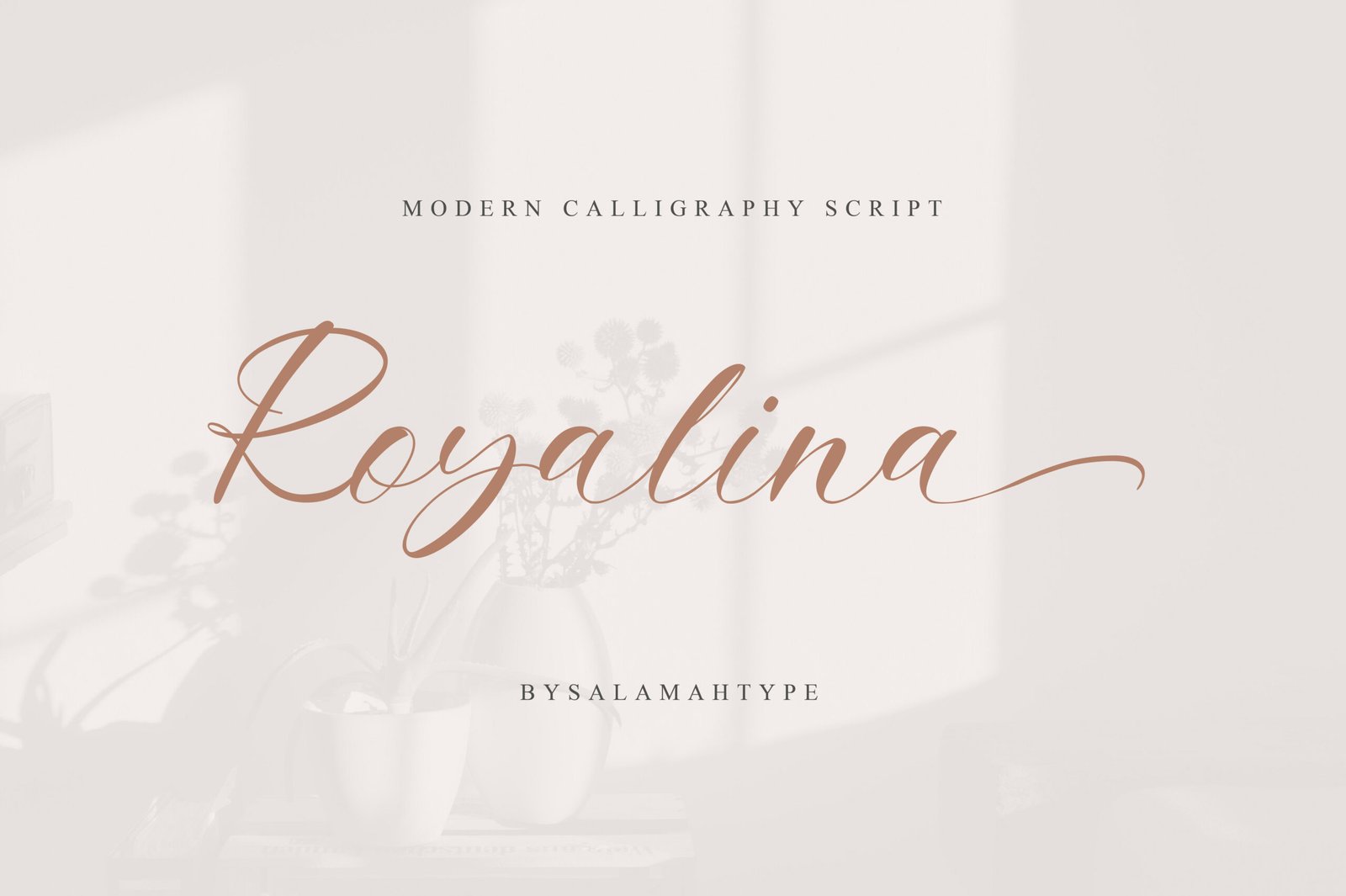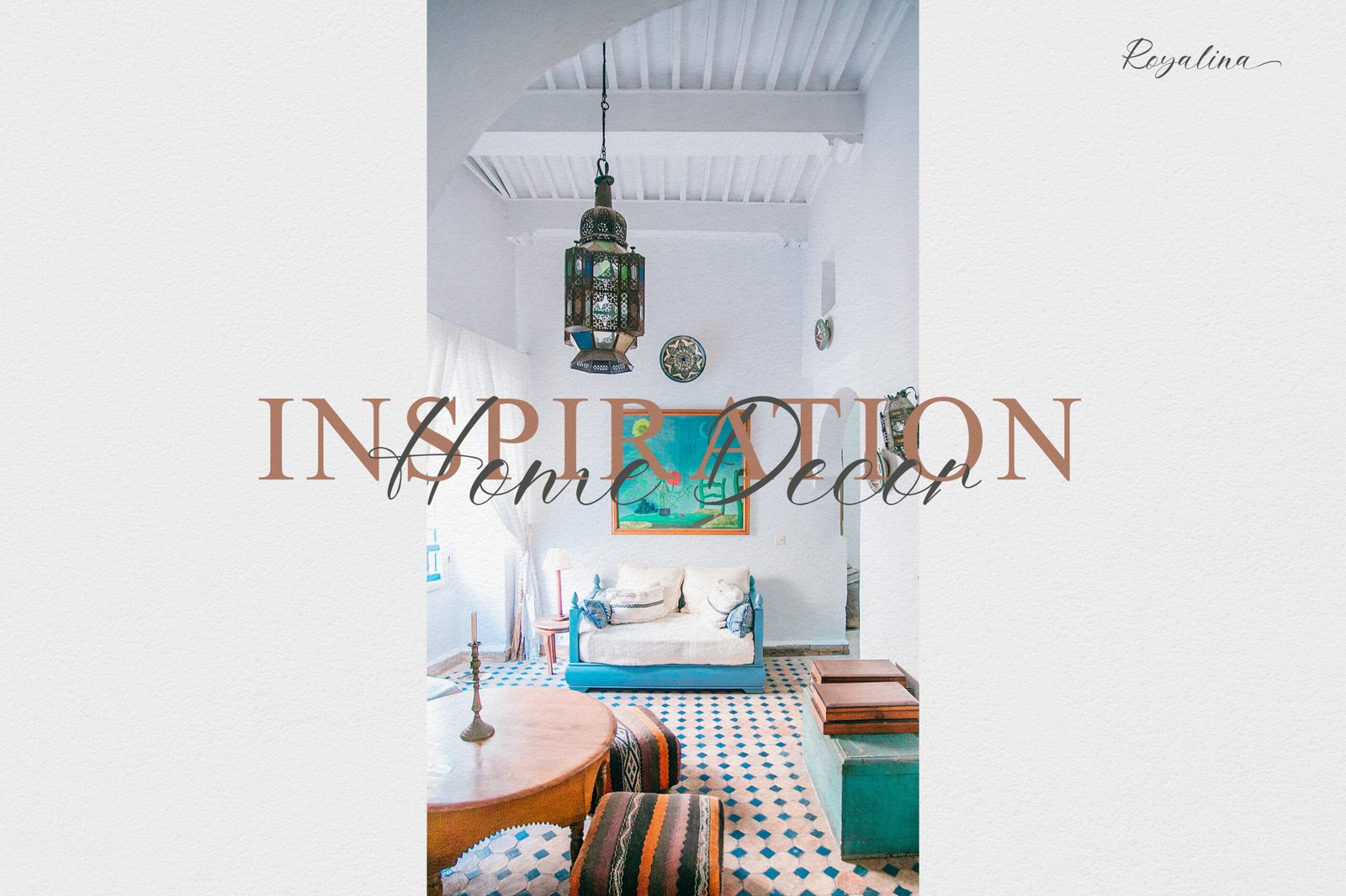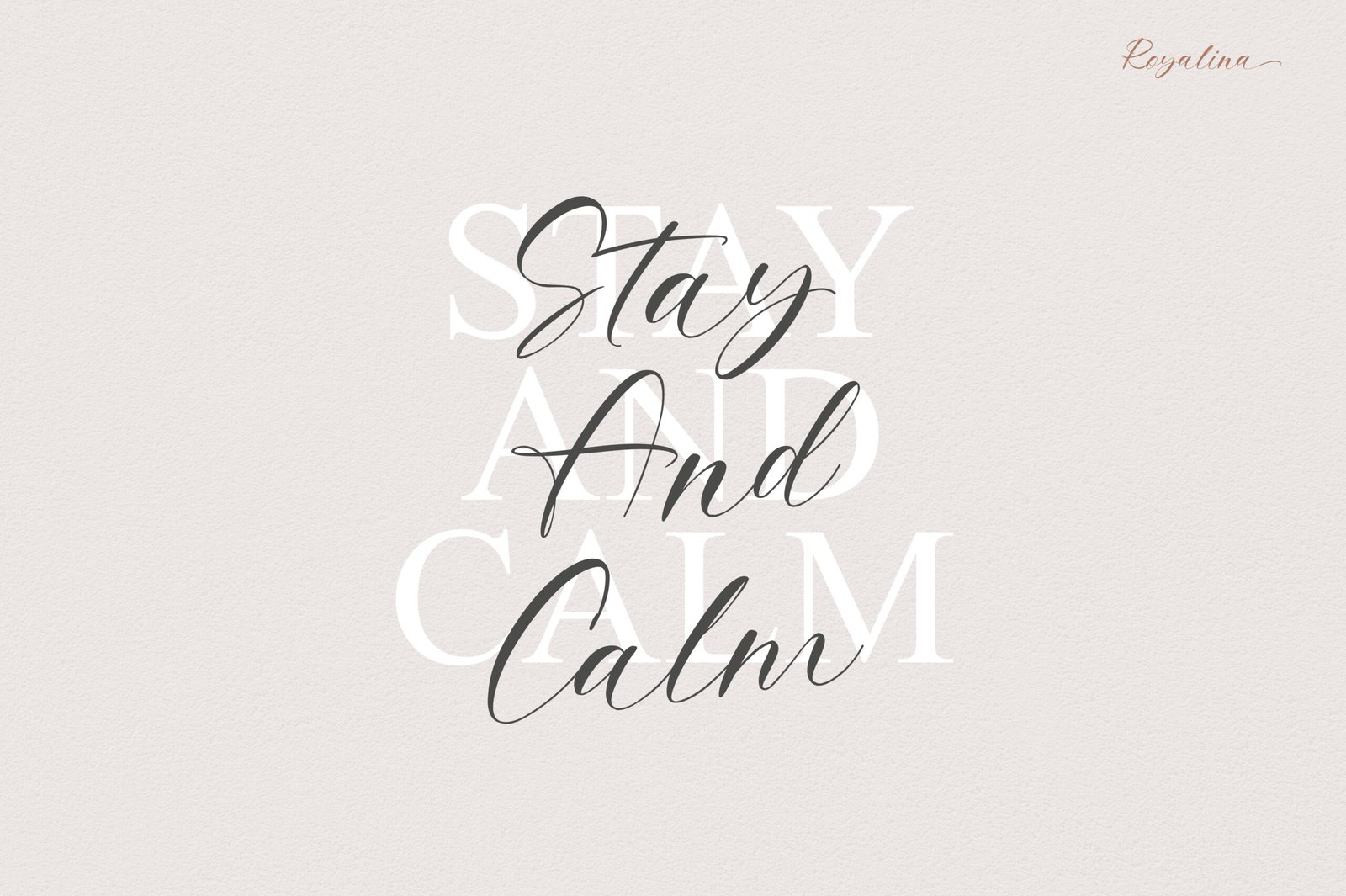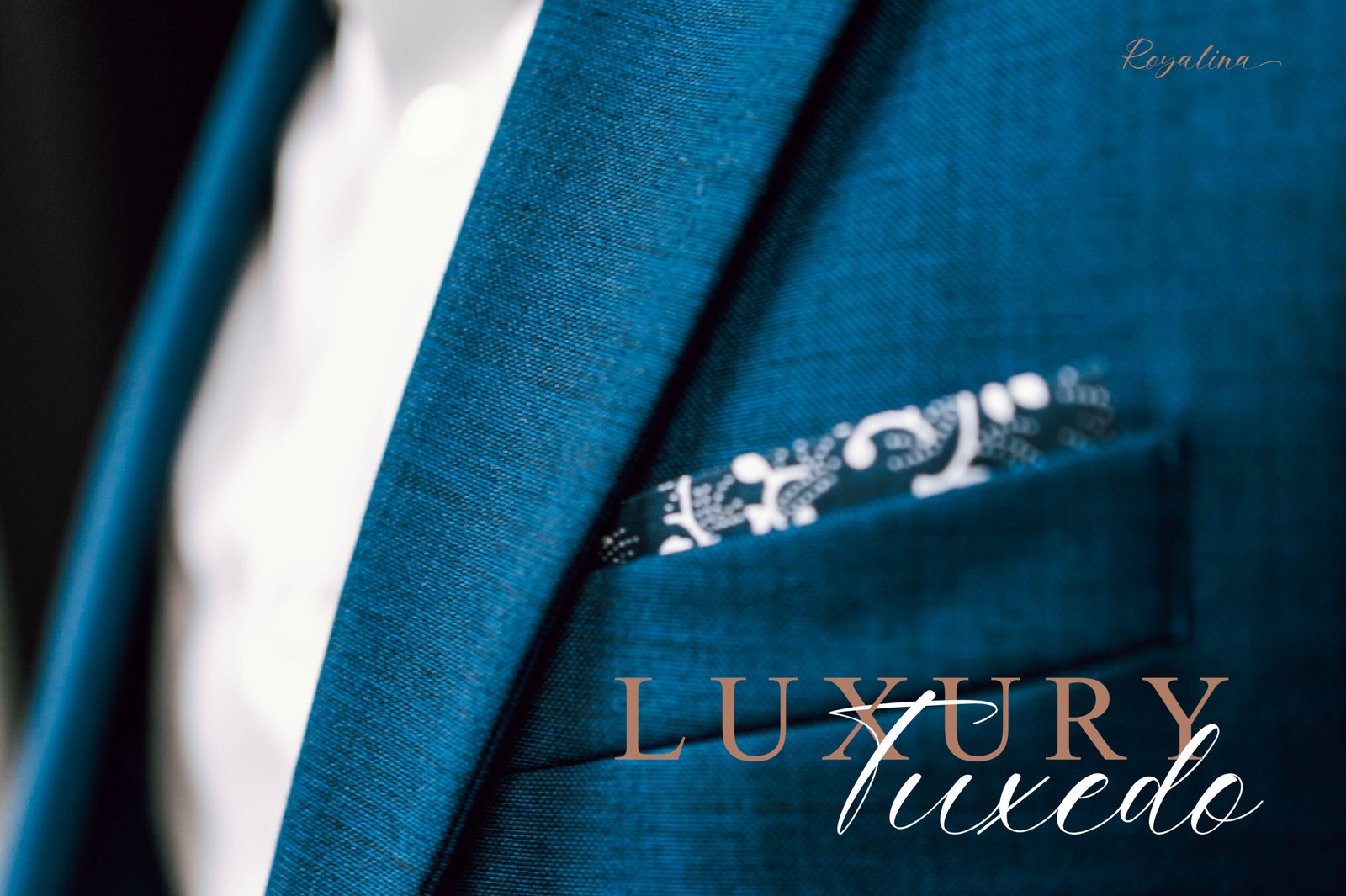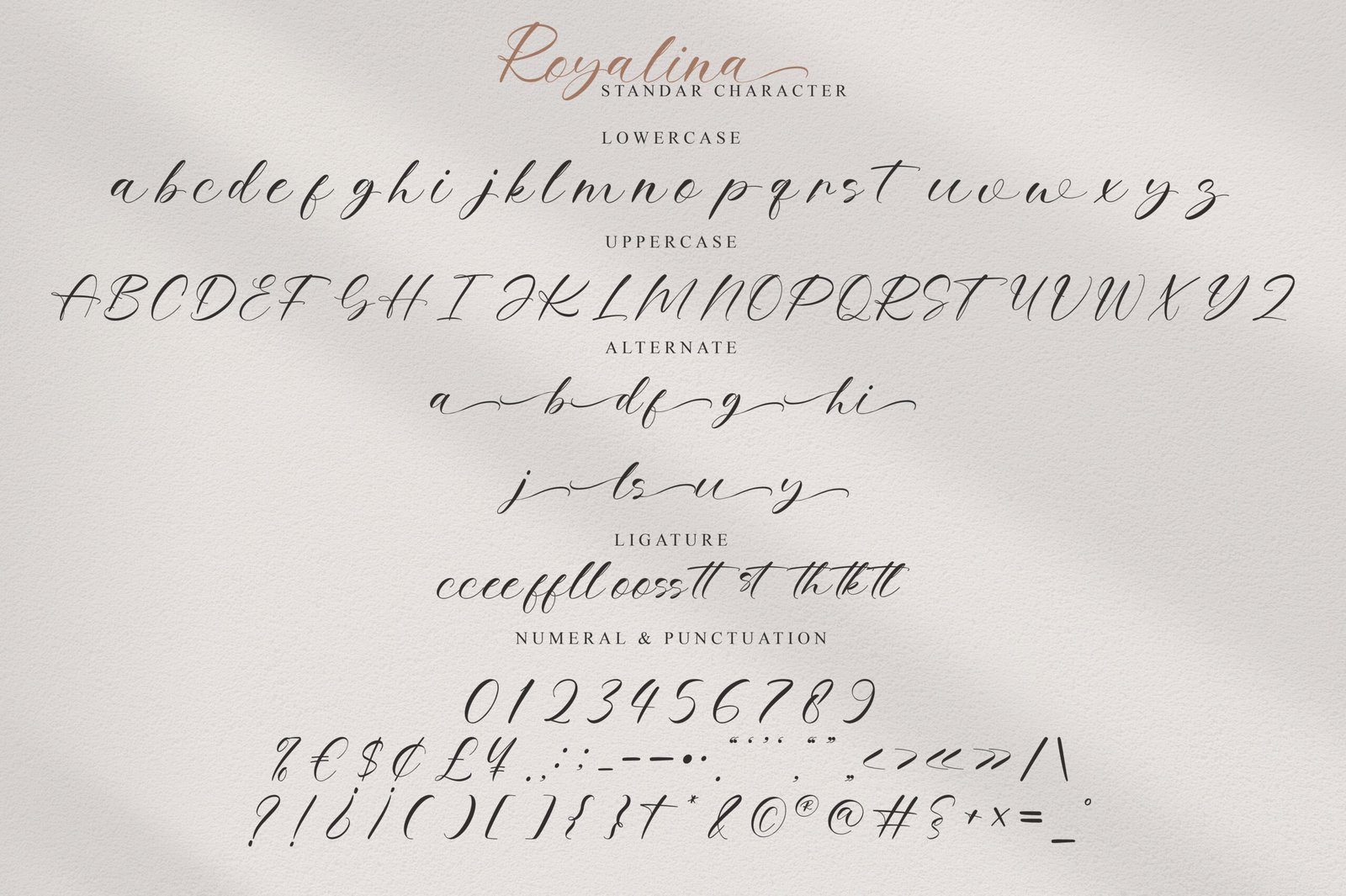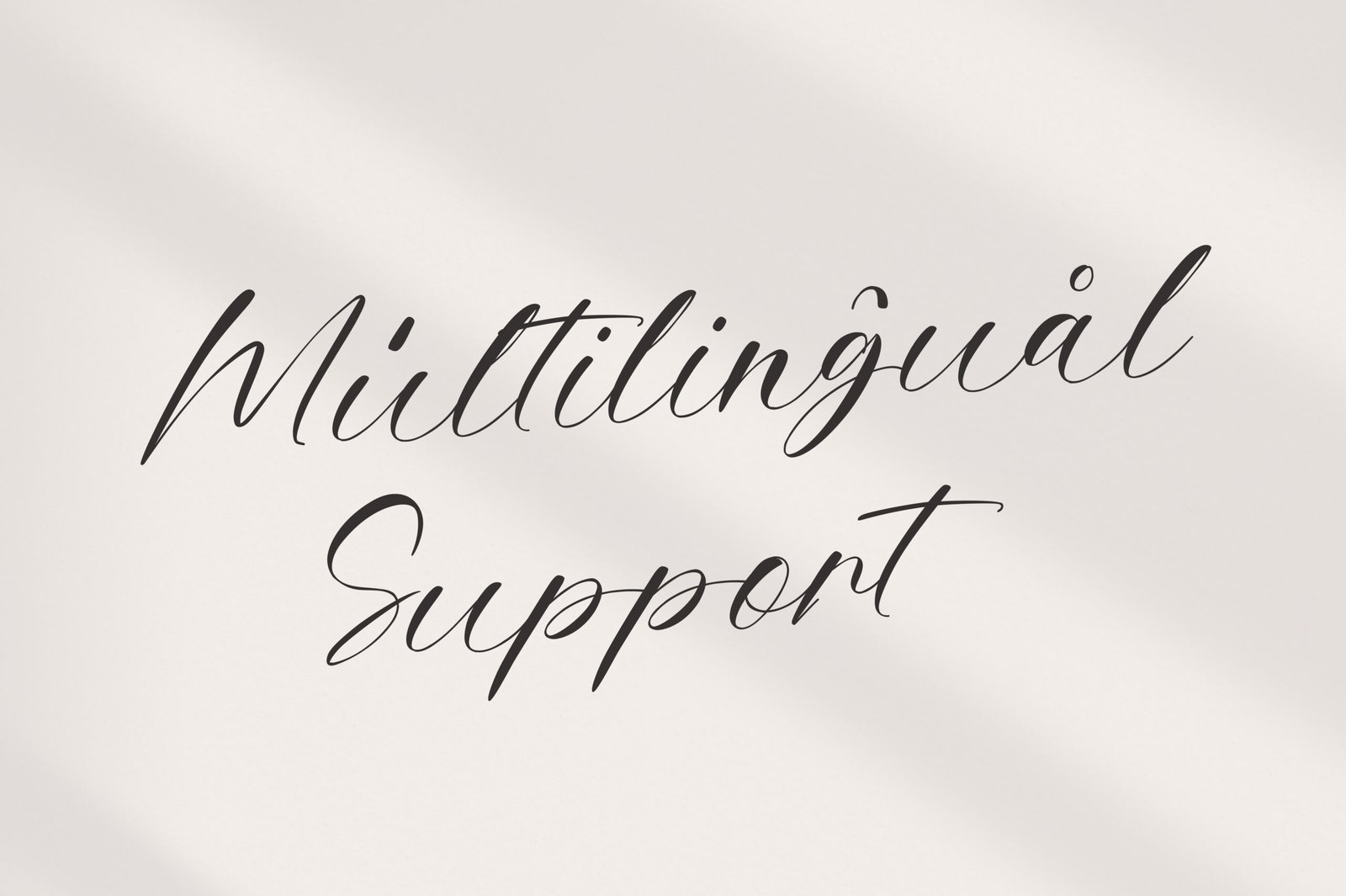
- Royalina Script
Royalina is a modern and elegant script font. This font is perfect for branding projects, logos, wedding designs, product packaging, product designs, labels, invitations, social media posts, ads, merchandise, and more!
- Uppercase & Lowercase
- Numbers and Punctuation
- MULTILINGUAL
- Ligature and Alternate